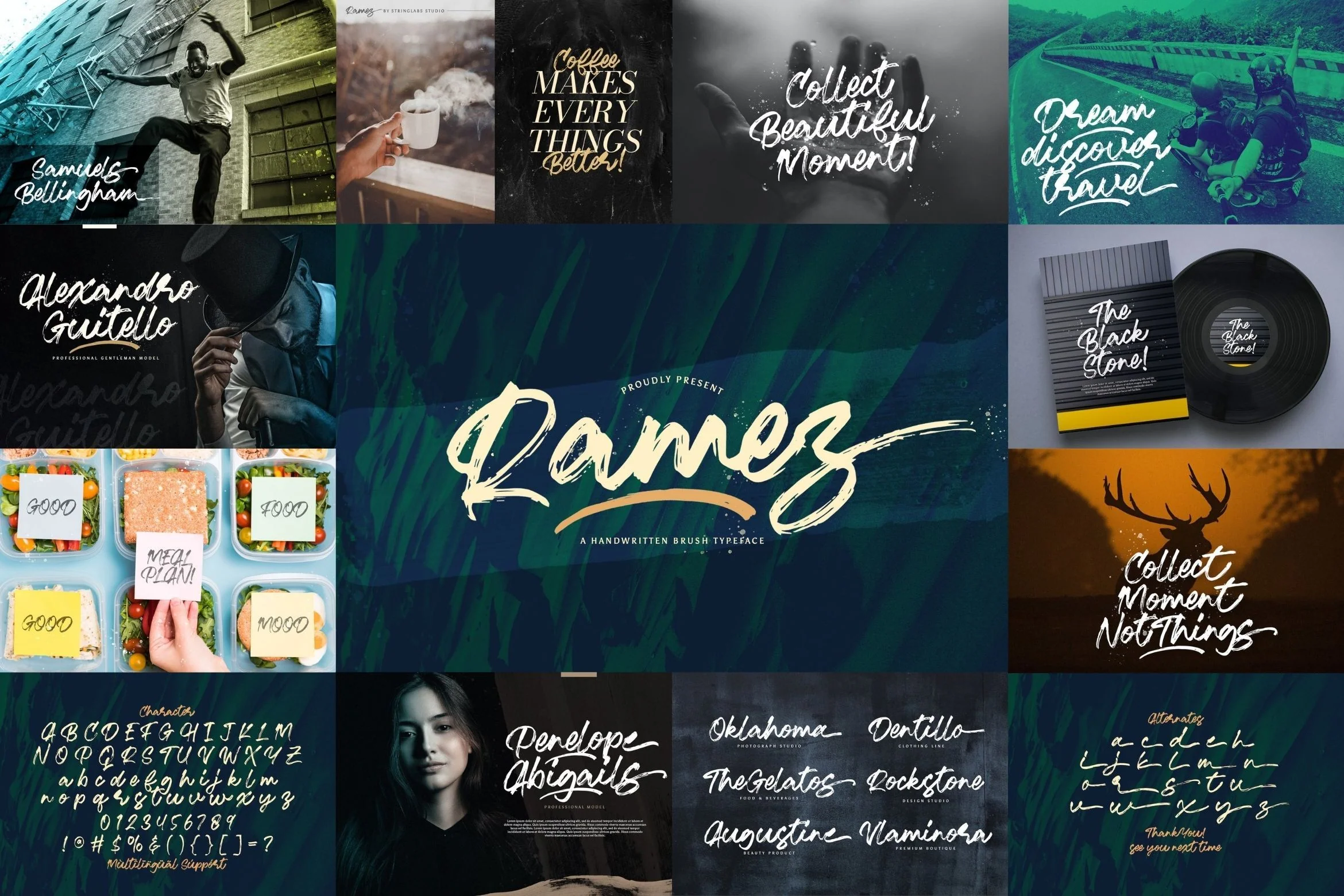
Brush Textured Font Bundle Vol. 1
Introducing Brush Textured Font Bundle Vol. 1 This font bundle contains 9 high quality textured handbrush fonts with authentic and unique styles. This Brush Font Bundle is a cool, brushed display font. This original and bold look will appeal to a wide range of crafty ideas, from letterheads and titles, to stationery. This Font Bundle is a lovely and brushed script font that exudes elegance and class. This font was particularly crafted for those who need a beautiful and refreshing look to their designs. Get inspired by its unique and beautiful style and add it to your favorite designs!
FONTS INCLUDED :
1. Blackwell
2. The Junipes
3. Fany Brush
4. Rinjany
5. Higuey Matteo
6. Rugani Payne
7. Riqage
8. Ramez
9. Fentry